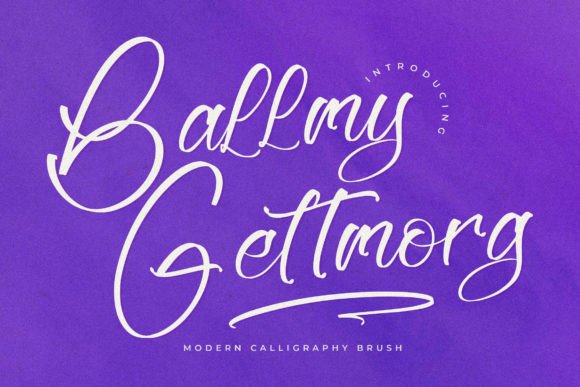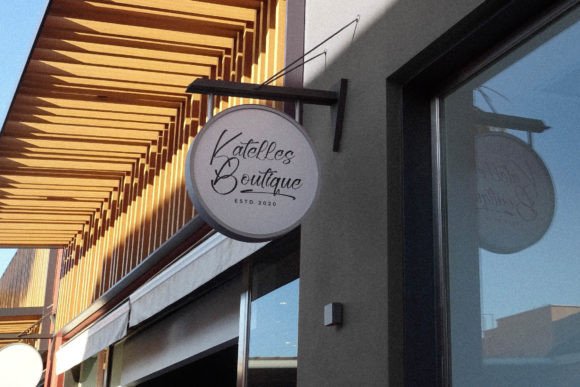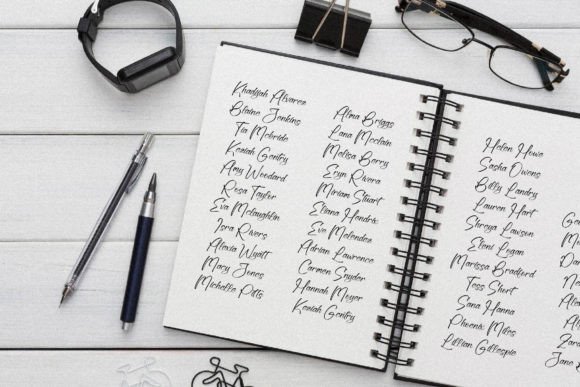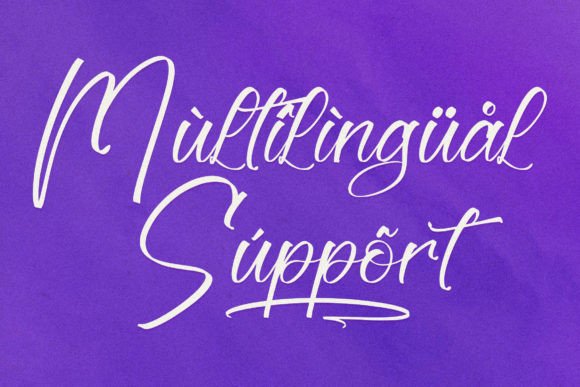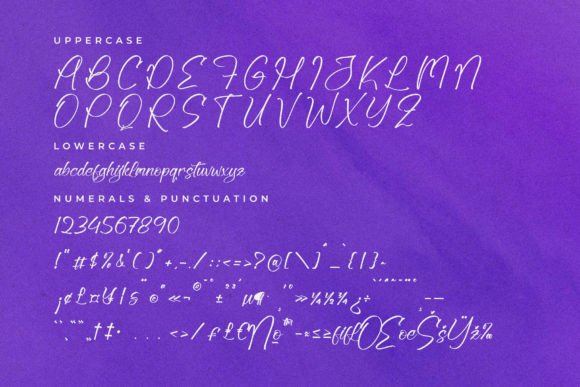
Ballmy Gettmorg
About Ballmy Gettmorg
Ballmy Gettmorg is a romantic and sweet calligraphy typeface with characters that dance along the baseline. It will add a luxury spark to any design project that you wish to create!